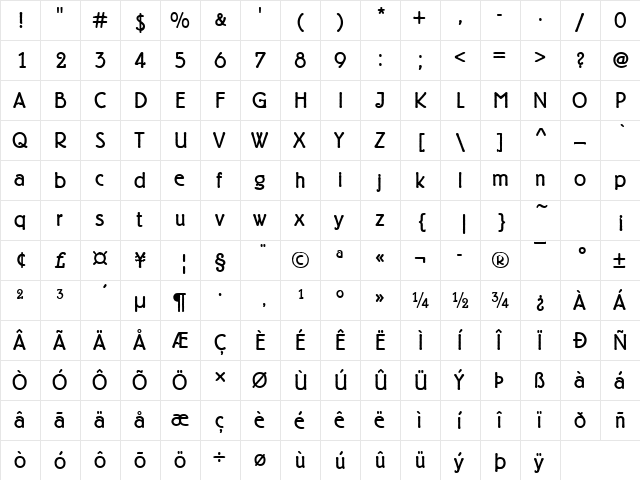
BerlinerGroDLig Regular
BerlinerGroDLig takes a measured approach to typography — its balanced proportions and neutral character make it a reliable workhorse for both digital and print work.